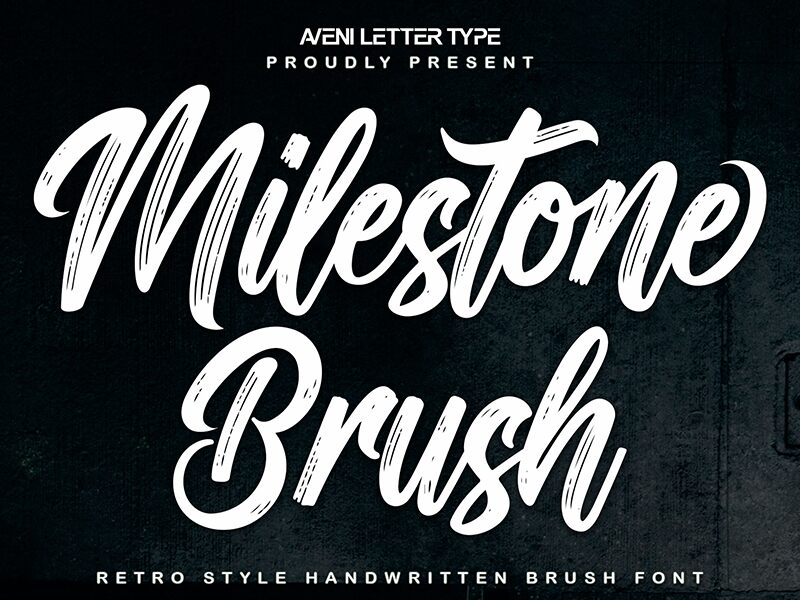
Milestone Brush, a captivating creation by Aveni Letter Type, exudes a bold and enchanting flair. This condensed brush font boasts a striking, fluid appearance that seamlessly blends elegance and dynamism. Its smooth, calligraphic strokes evoke a sense of refined sophistication, while the subtle variations in line weight lend an organic, handcrafted touch. Milestone Brush's versatile nature allows it to seamlessly transition between formal and informal settings, making it a versatile choice for a wide range of design applications.
Milestone Brush's adaptability shines through in its ability to elevate various design projects, from luxury branding and editorial layouts to captivating social media posts and eye-catching event invitations. Its condensed width and bold presence make it an excellent selection for headers, titles, and impactful display text, while its legibility also lends itself well to body copy and longer-form content. Milestone Brush's distinct aesthetic can serve as a powerful tool for designers seeking to create a memorable and sophisticated visual impact.